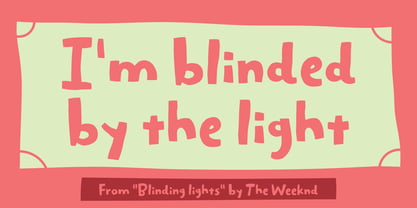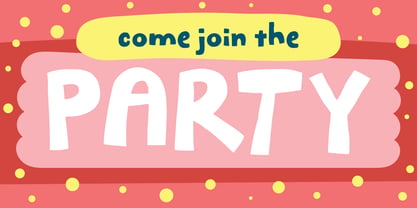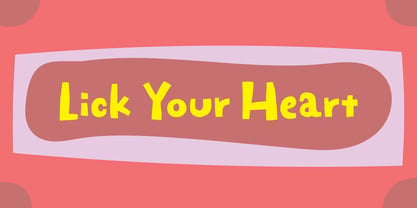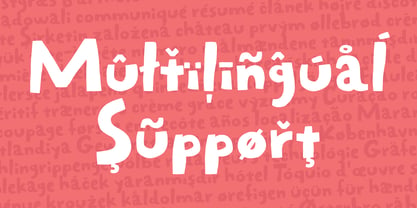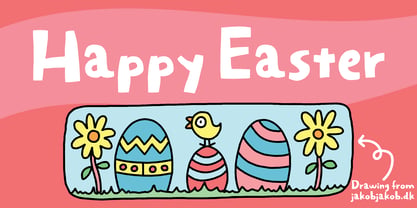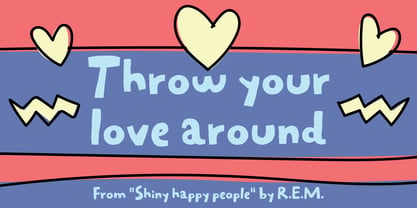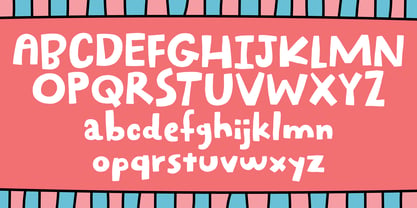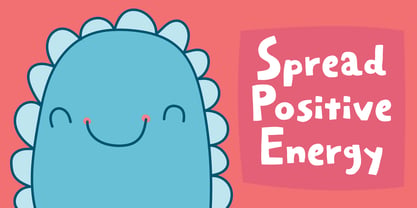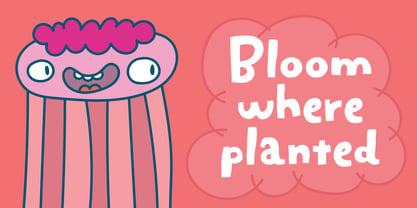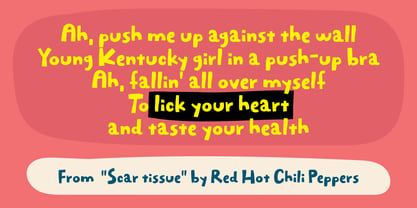
Lick Your Heart
by PizzaDude.dk
The Lick Your Heart Font Family was designed by Jakob Fischer and published by PizzaDude.dk. Lick Your Heart contains 2 styles and family package options. More about this family
"Lick Your Heart" is my happy little party bouncy comic font. It’s handmade, organic, chunky and full of energy. I can easily see this font being used for a project involving something to do with packaging, posters, candy, toys for kids, organic products or even romantic posters! As you may have noticed, the font was drawn by hand - and I did very little digital manipulation, in order to keep the original innocence and cheerfulness! Furthermore, I would like this happy font to be used all over the world, and then of course I have added multilingual support! :)
Designers: Jakob Fischer
Foundry: PizzaDude.dk